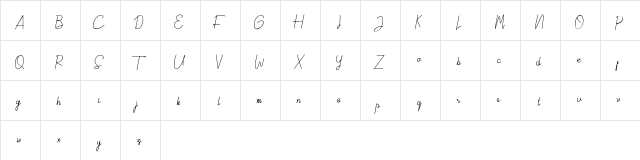
Tambora Regular
| Designer | Nico Muslib-Syahrul Fatoni |
Design Context for Tambora Typeface
Tambora is a composed and adaptable typeface that performs quietly and consistently across a wide range of design contexts.